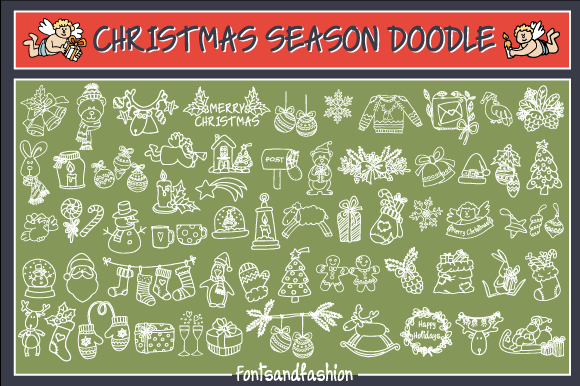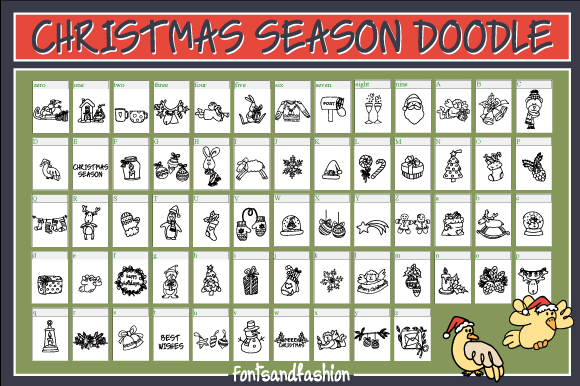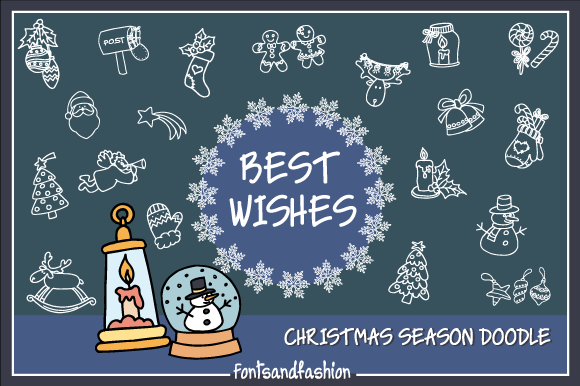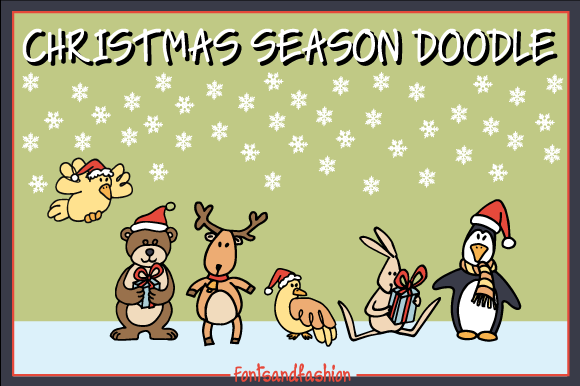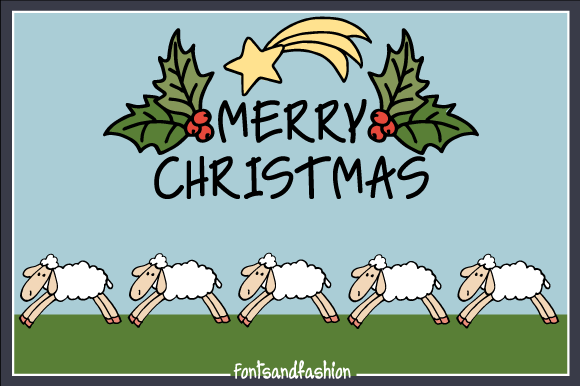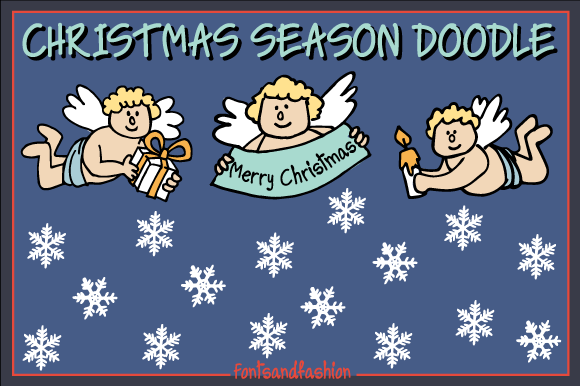
Christmas Season Doodle Font: Add a Touch of Whimsy to Your Holiday Crafts
The Christmas season is upon us, and with it comes the joy of creating festive and fun crafts to celebrate the holiday. If you’re a designer, crafter, or DIY enthusiast, you’re likely on the lookout for unique and playful elements to add to your projects. That’s where the Christmas Season Doodle Font comes in – a delightful dingbats font that includes 62 cute, whimsical, and funny Christmas elements to elevate your holiday creations.
What is Christmas Season Doodle Font?
Christmas Season Doodle Font is a specially designed dingbats font that features 62 charming Christmas-themed elements. These elements include adorable illustrations of snowmen, reindeer, Christmas trees, stockings, and many more festive icons. The font is perfect for adding a personal touch to your holiday crafts, such as party invitations, scrapbooking pages, Christmas cards, and other fun projects.
Key Features of Christmas Season Doodle Font
- 62 Cute and Whimsical Elements: The font includes a wide range of Christmas-themed illustrations, from sweet snowflakes to playful reindeer.
- Dingbats Font: The font is designed as a dingbats font, making it easy to use and access the various elements.
- Festive and Fun: The illustrations are designed to add a touch of whimsy and fun to your holiday crafts.
- Perfect for Holiday Crafts: The font is ideal for party invitations, scrapbooking, Christmas cards, and other holiday projects.
Uses for Christmas Season Doodle Font
The Christmas Season Doodle Font is incredibly versatile and can be used in a variety of ways to add a personal touch to your holiday crafts. Here are some ideas to get you started:
- Party Invitations: Add a playful touch to your holiday party invitations with the font’s festive illustrations.
- Scrapbooking: Use the font to create fun and whimsical scrapbooking pages that showcase your holiday memories.
- Christmas Cards: Add a personal touch to your Christmas cards with the font’s adorable illustrations.
- Holiday Crafts: The font is perfect for any type of holiday craft, from gift tags to decorations.
Tips for Using Christmas Season Doodle Font
Here are some tips for getting the most out of the Christmas Season Doodle Font:
- Experiment with Different Sizes: Try using the font in different sizes to add visual interest to your projects.
- Combine with Other Fonts: Combine the font with other holiday-themed fonts to create a unique and festive look.
- Use in Digital Projects: The font can be used in digital projects, such as social media graphics and holiday-themed blog posts.
| Font Name | Christmas Season Doodle Font |
| Author | Fontsandfashion |
The Christmas Season Doodle Font is a delightful addition to any holiday craft project. With its 62 cute and whimsical illustrations, this font is sure to add a touch of fun and festivity to your creations. Whether you’re a designer, crafter, or DIY enthusiast, this font is perfect for anyone looking to create unique and playful holiday crafts. So why not give it a try and see how you can use it to elevate your holiday projects?